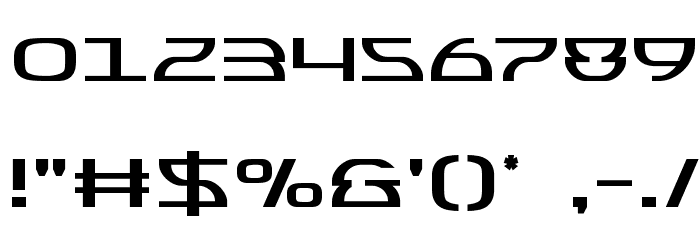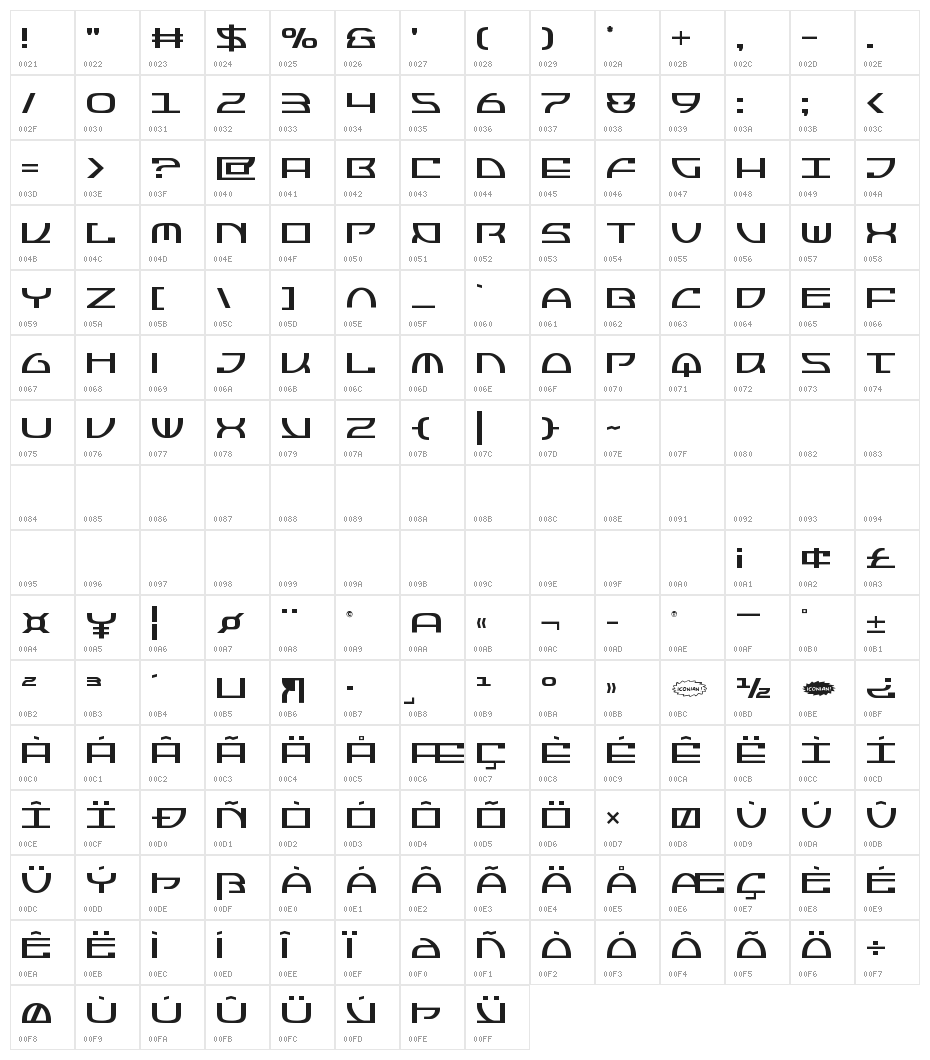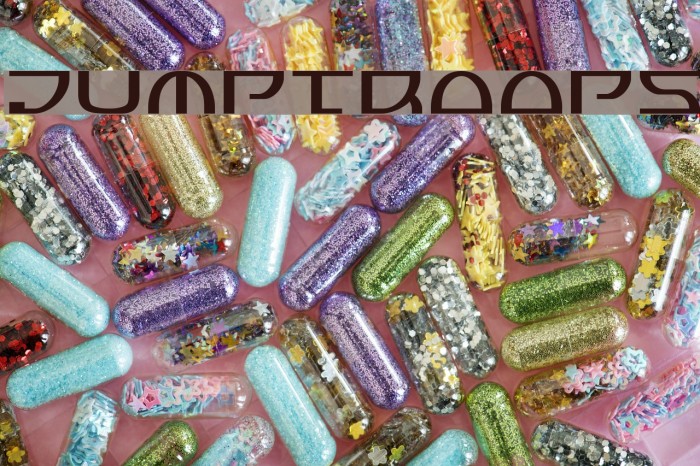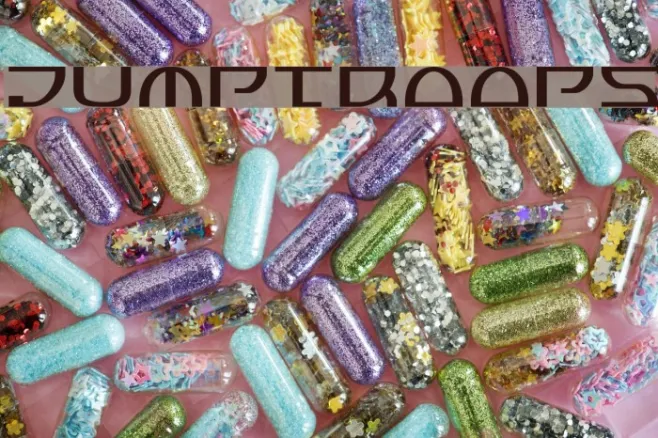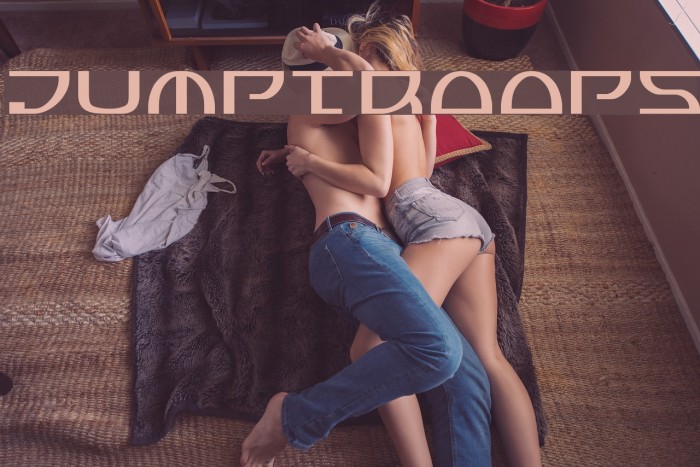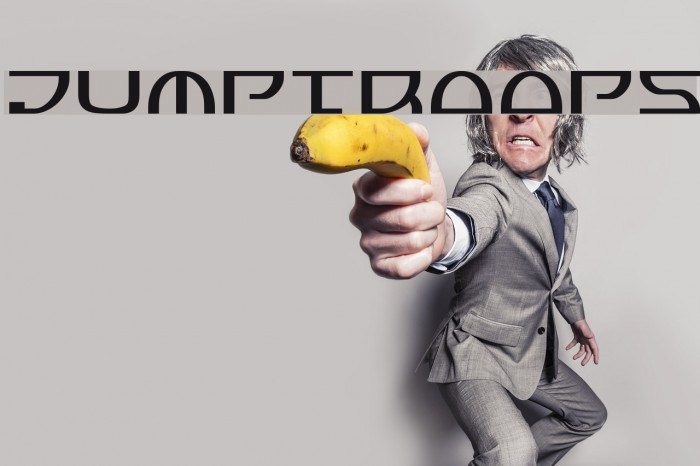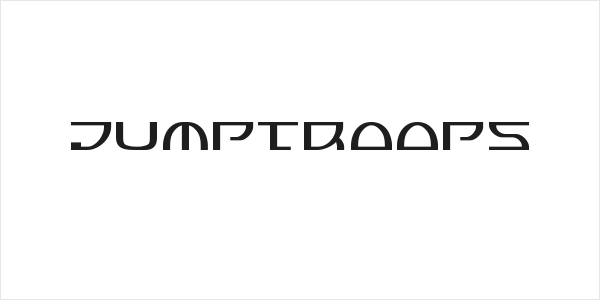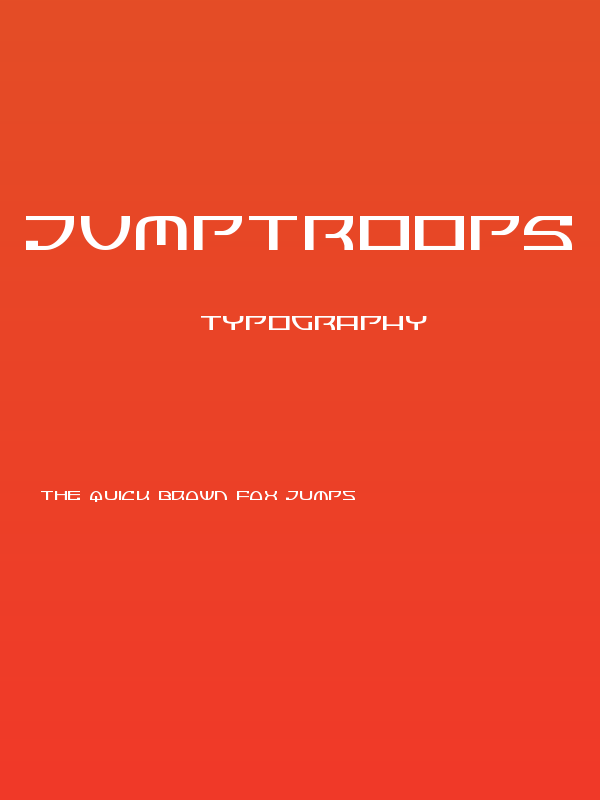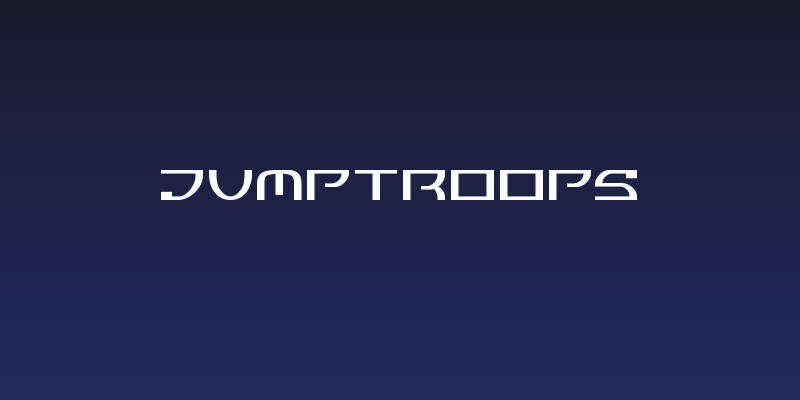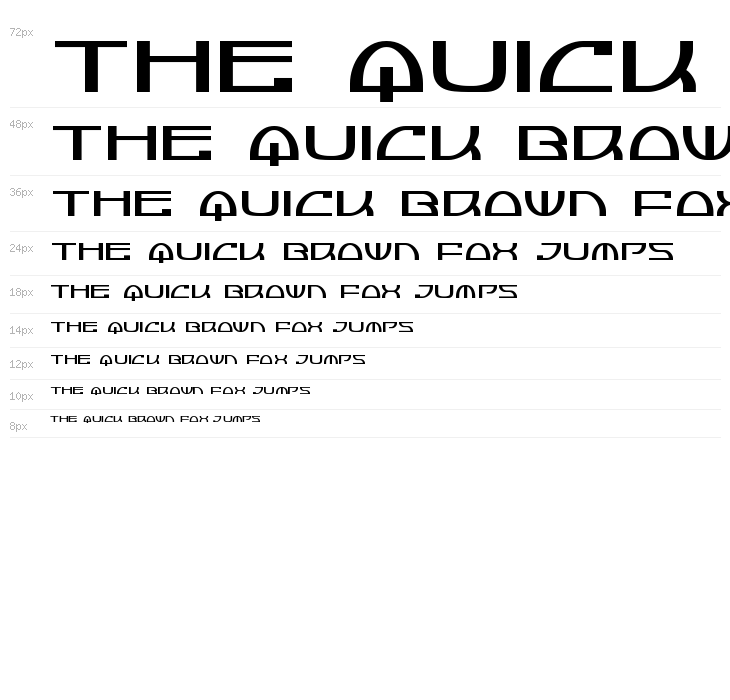
Jumptroops Font
Jumptroops Description
This font features a futuristic and geometric design with a distinctively modern aesthetic. The characters are constructed with sharp angles and clean lines, giving it a sleek and technical appearance. The uppercase and lowercase letters maintain a consistent style, with some characters incorporating unique cut-out elements that add to its modern flair. The numerals are equally stylized, matching the angular and precise look of the alphabet. Special characters are designed to complement the overall theme, ensuring a cohesive visual identity. This font is well-suited for projects that require a contemporary and innovative touch.